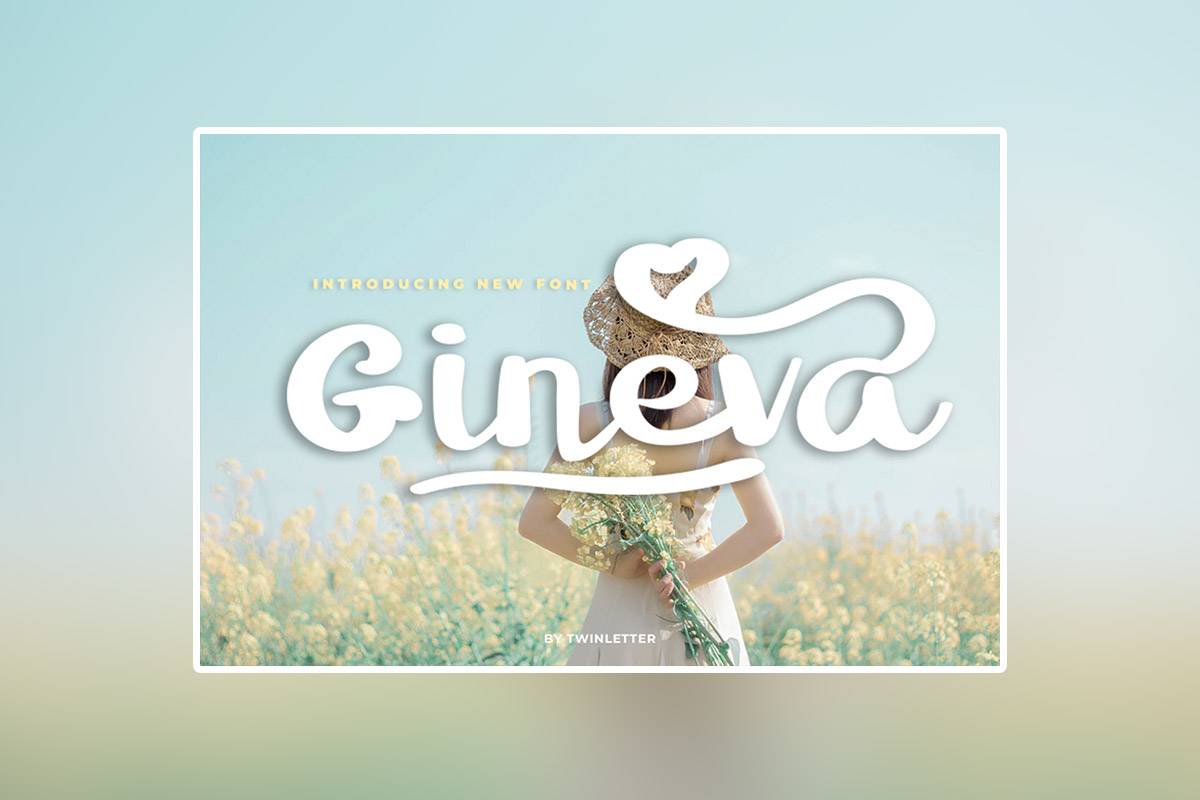
Gineva is a playful and bold script font with a hand-drawn feel, featuring thick, rounded strokes and lively letterforms that add a friendly and approachable personality. Its casual style works great for creative projects, children's branding, and informal headlines where a fun and inviting tone is desired. This font shines in designs that need warmth and charm, making it perfect for packaging, posters, and online content targeting a youthful or casual audience.
Gineva Font
About Gineva Font